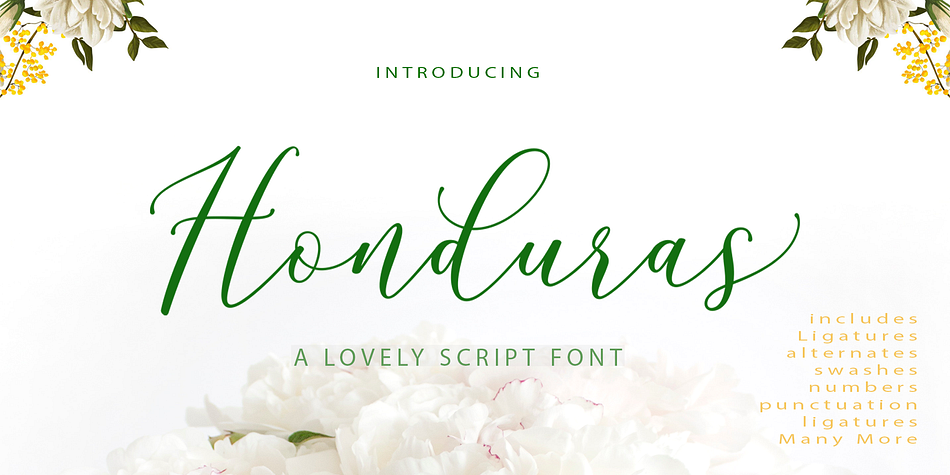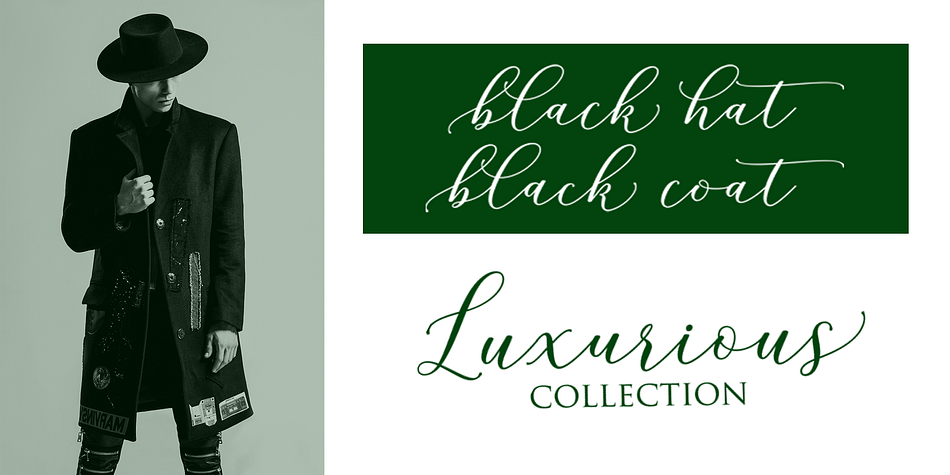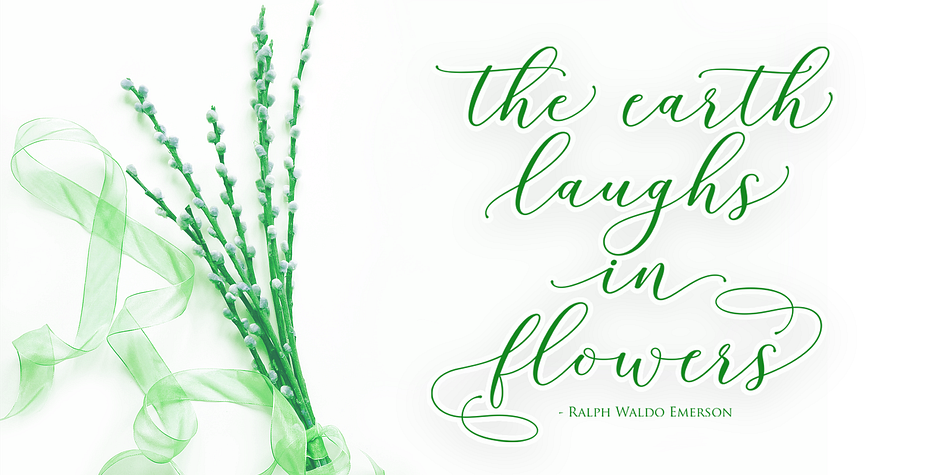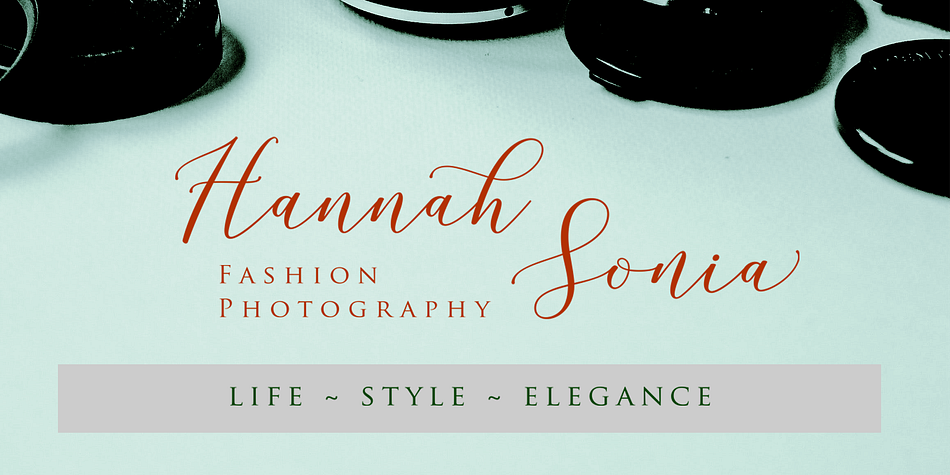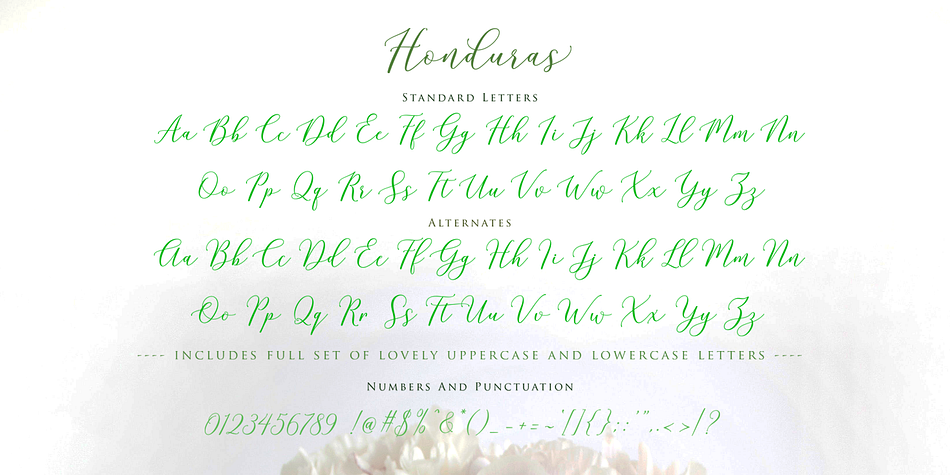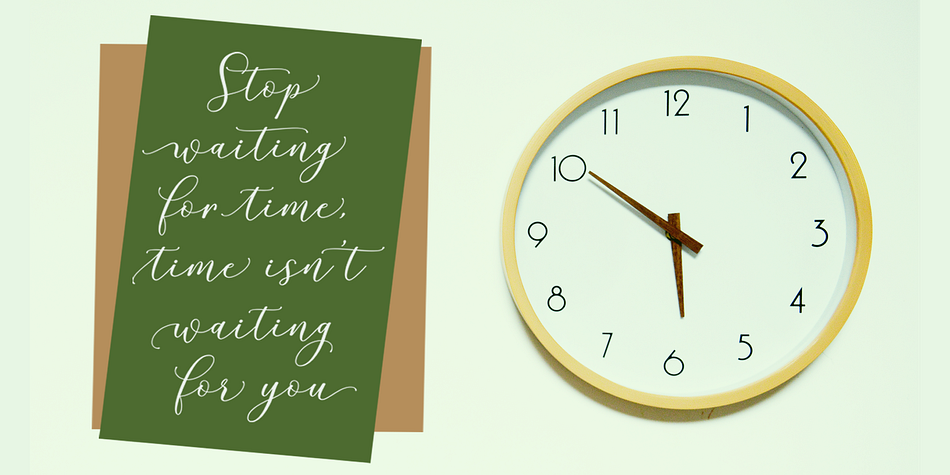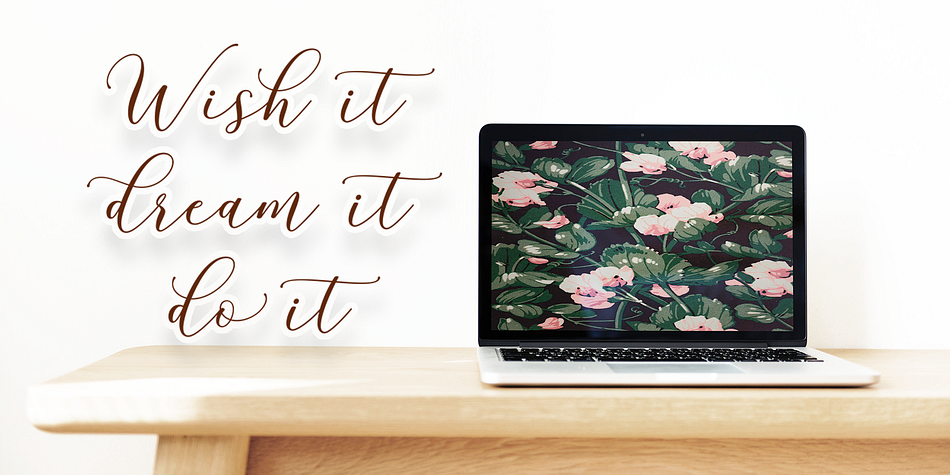
Honduras
Honduras is a script font family. This typeface has two styles and was published by Gatype.
Honduras Script is a decorative, cursive script font characterized by its elegant, flowing strokes. The design of this font typically mimics handwritten or calligraphic styles, with smooth curves and artistic flourishes on many of the letters. It’s ideal for projects that need a sophisticated or stylish touch, such as wedding invitations, branding, or logo design.